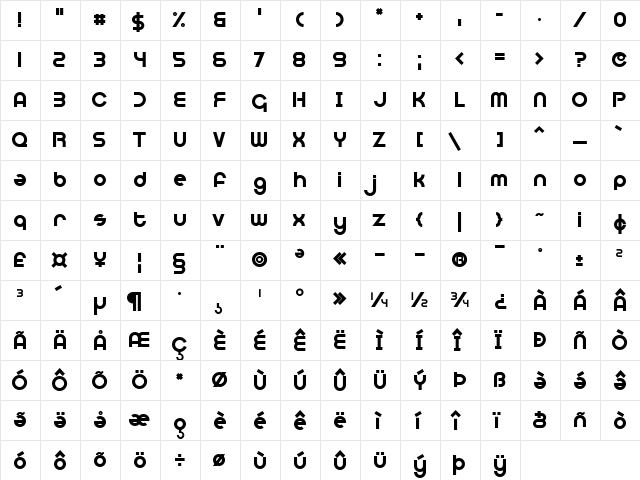
Optien Regular
| Designer | M害 Greb䣫 |
Design Context for Optien Typeface
Optien takes a measured approach to typography — its balanced proportions and neutral character make it a reliable workhorse for both digital and print work.